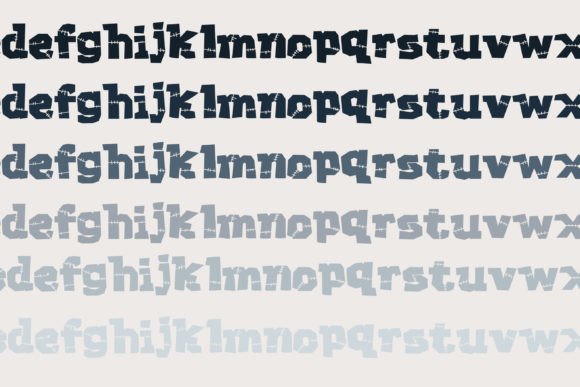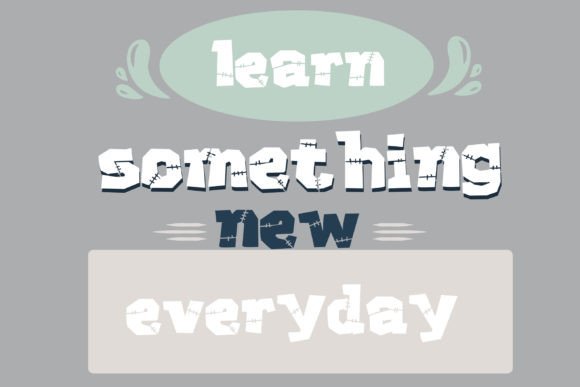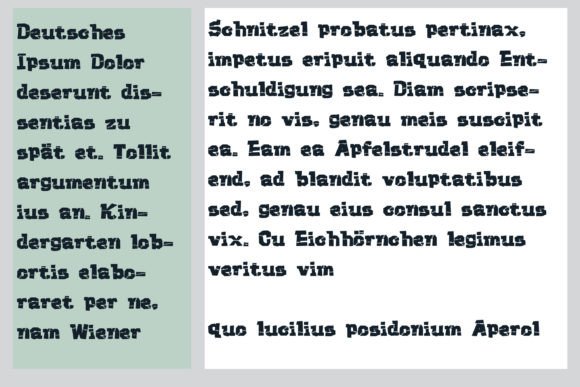
Unleash the Spooky Magic of Frankenfriend Font
Ah, Halloween – the season of spooky delights, eerie elegance, and playful frightfulness. As designers, crafters, and creative hobbyists, we know how crucial it is to find the perfect font to capture the essence of this haunted holiday. I still recall the year I was working on a Halloween party invitation project, and my client requested a font that would make their guests shiver with excitement. After scouring the internet for what felt like an eternity, I stumbled upon the delightful Frankenfriend Font – a game-changer for all my Halloween design needs.
An Honest Review of Frankenfriend Font
So, what makes Frankenfriend Font so special? Let’s dive into the good stuff!
- ✨ Whimsical and eerie letterforms that perfectly capture the Halloween spirit
- ✅ Perfect for party invitations, posters, and spooky decorations – it’s versatile and fun!
- 🎃 Easy to read and understand, even in smaller font sizes – a major win for designers!
Of course, no font is perfect, and Frankenfriend Font has a few minor quirks:
- 🤔 Limited use outside of Halloween-themed projects – it’s a specialty font, after all!
- ⚠️ Some characters may require manual kerning for optimal spacing – but trust us, it’s worth it!
The Story Behind Frankenfriend Font
Legend has it that Frankenfriend Font was created by a team of designers who wanted to capture the whimsical, spooky essence of Halloween. Inspired by classic monster movies, creepy carnivals, and haunted mansions, they crafted a font that’s equal parts playful and eerie. The result? A font that’s become a staple in many designers’ Halloween toolkits.
| Q: What type of projects is Frankenfriend Font best suited for? | A: Frankenfriend Font is perfect for Halloween-themed projects, such as party invitations, posters, decorations, and more. |
With Frankenfriend Font, you’ll be well on your way to creating spooktacular designs that will leave your audience shivering with delight. So go ahead, unleash your creativity, and add a touch of Halloween magic to your projects!